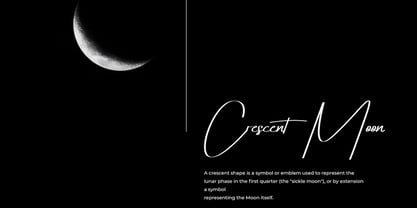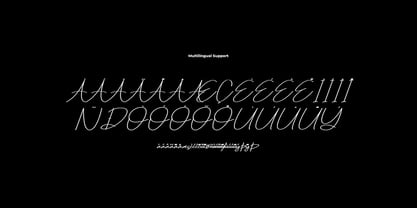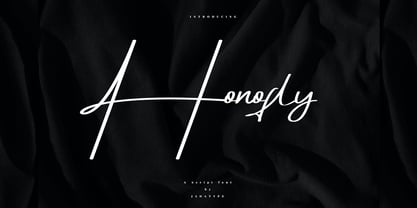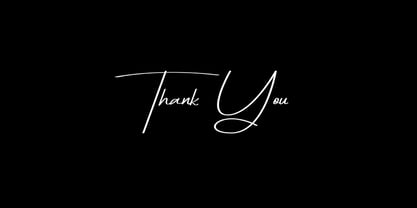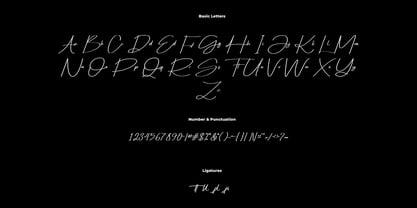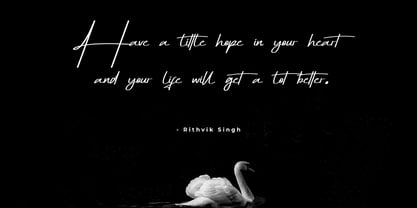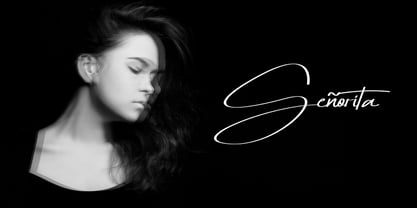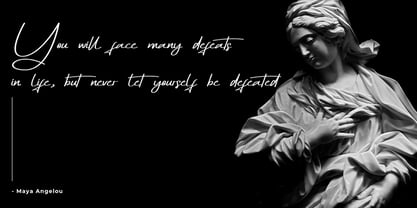
Honofly
by Jadatype
The Honofly Font Family was designed by Jada Akbal and published by Jadatype. Honofly contains 1 styles. More about this family
Honofly is a modern script font featuring sleek, flowing lines that add elegance to any design. With full multilingual support, it’s perfect for global projects. Easily installable in Adobe and Affinity applications, Honofly enhances your creative workflow, making it ideal for branding, invitations, and more
Designers: Jada Akbal
Foundry: Jadatype